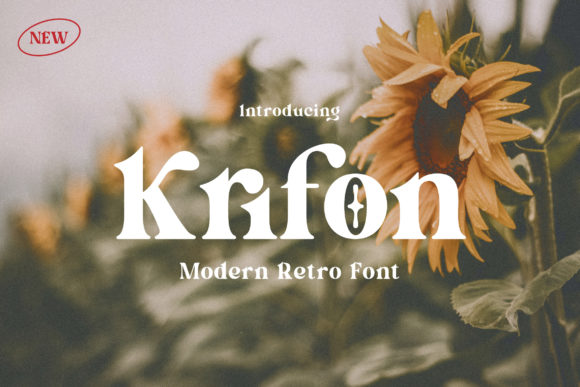
Introducing Krifon Font, the ultimate choice for web app designers seeking a touch of elegance and retro vibes. Crafted by the talented Tebaltipis.std, this remarkable serif font is guaranteed to elevate your online presence and captivate users like never before. Get ready to unleash your creativity with Krifon Font!
With its PUA encoding, Krifon Font offers seamless access to a wide range of glyphs and swashes, allowing you to add unique and eye-catching elements to your designs effortlessly. Stand out from the crowd and make a lasting impression with this versatile font that combines classic charm with a modern twist.
Why settle for ordinary when you can embrace the extraordinary? Krifon Font is carefully designed to evoke emotions and create a powerful connection with your audience. Its timeless appeal and attention to detail make it the perfect choice for any web app project that demands excellence.
Picture this: a web app that not only functions flawlessly but also exudes sophistication and style. Krifon Font is specifically crafted to enhance user experience and create a seamless visual journey. Let your website speak volumes about your brand's professionalism and attention to detail with this one-of-a-kind font.
But that's not all! Krifon Font is a game-changer when it comes to readability. Its well-defined serifs and balanced letterforms ensure that your content is not only visually stunning but also easy to consume. Whether it's headlines, body text, or captions, this font guarantees a pleasant reading experience that keeps users engaged.
In the world of web app design, staying ahead of the curve is crucial. Krifon Font empowers you to do just that with its modern yet timeless appeal. Impress your users with its stunning versatility and adaptability to various design styles and themes. From sleek and minimalist to bold and expressive, this font effortlessly adapts to your creative vision.
Ready to take your web app design to new heights? Embrace the power of Krifon Font and unlock a world of possibilities. Whether you're creating a personal blog, an e-commerce platform, or a corporate website, this font is your secret weapon for success.